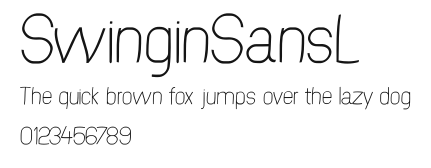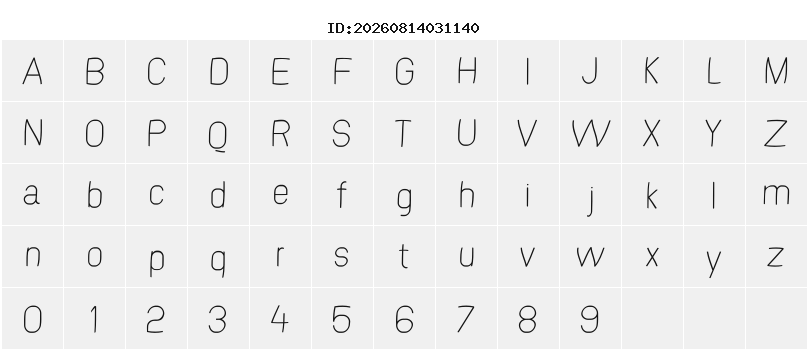
SwinginSansL Preview
• Font Name: SwinginSansL
• Font Style: ExtraLight
About SwinginSansL.ttf
SwinginSansL.ttf is a modern, elegant sans-serif font designed for ultimate readability and visual harmony. Perfect for branding, headlines, web design, and print materials.